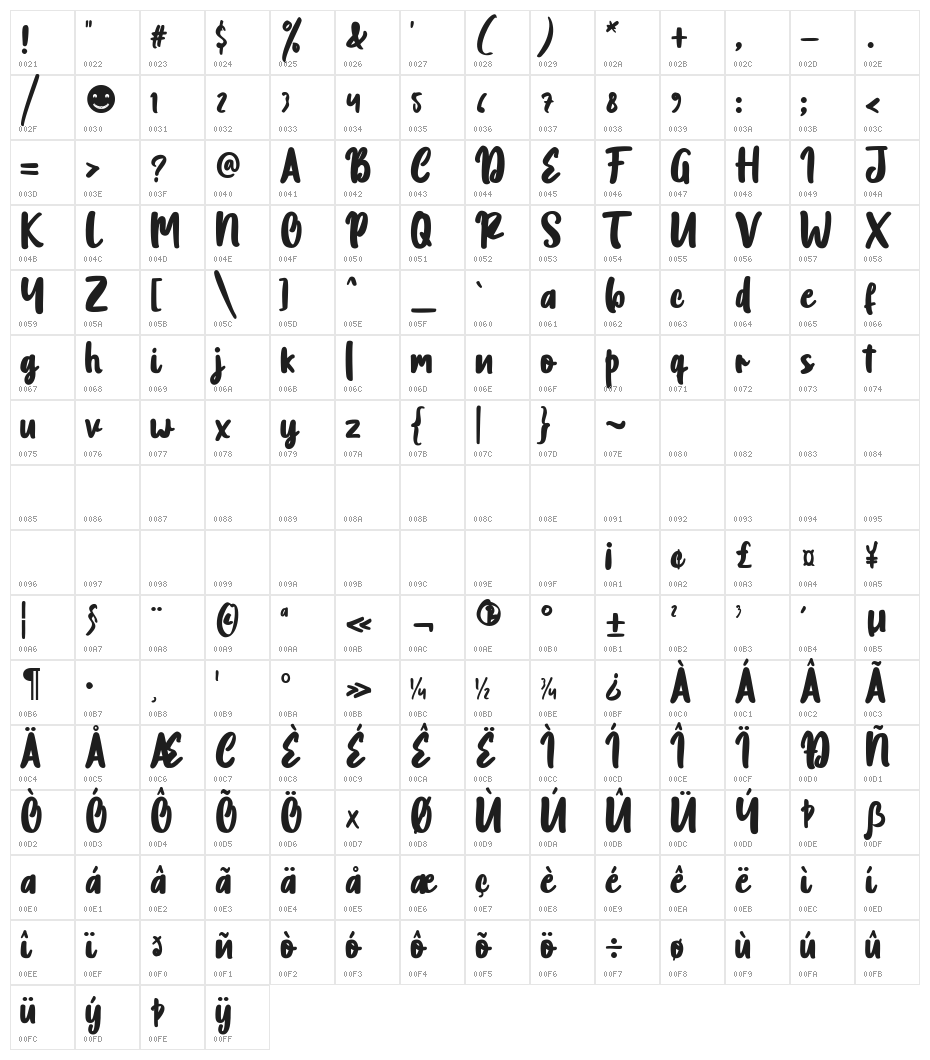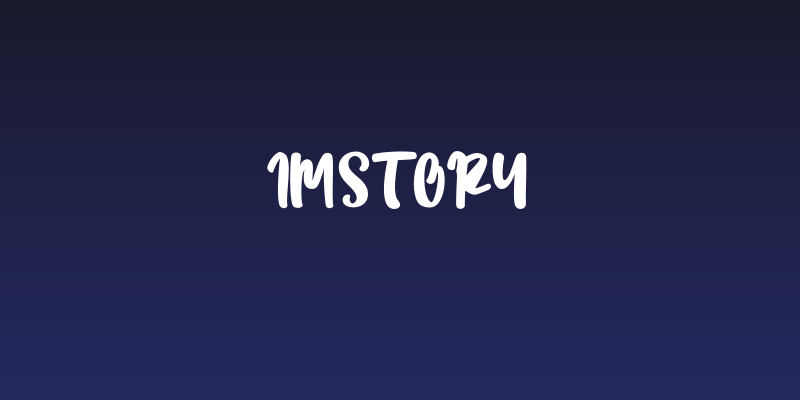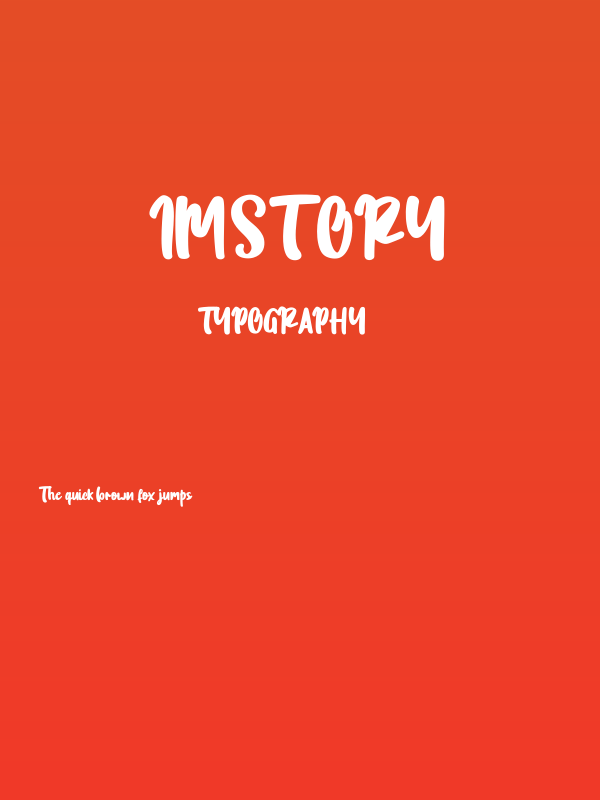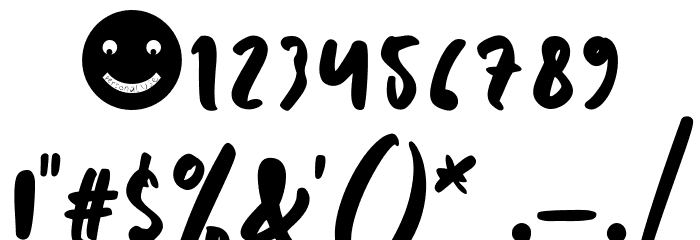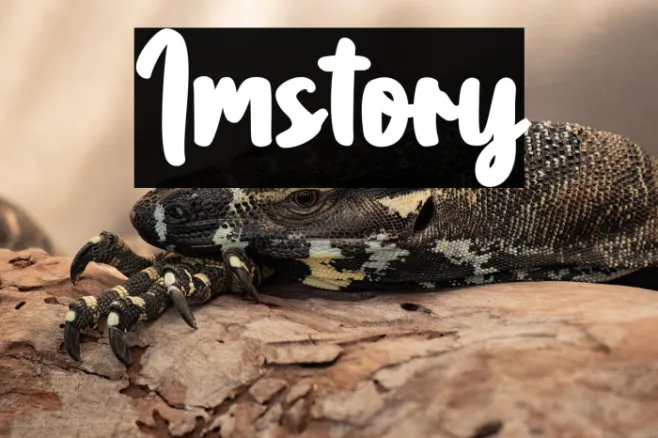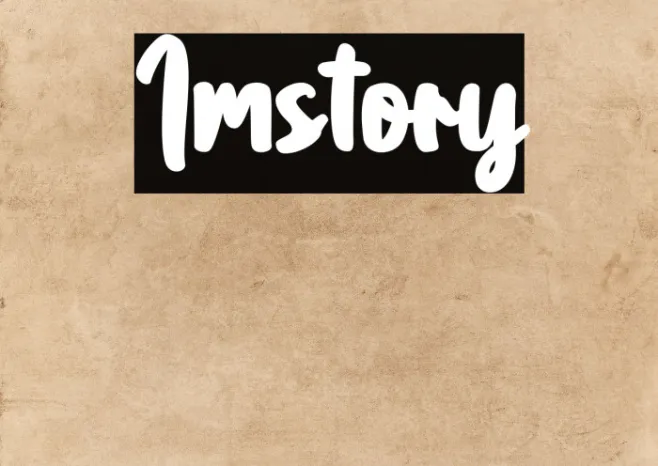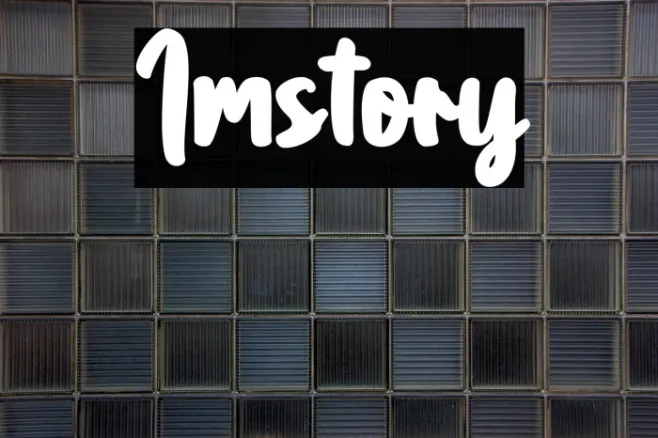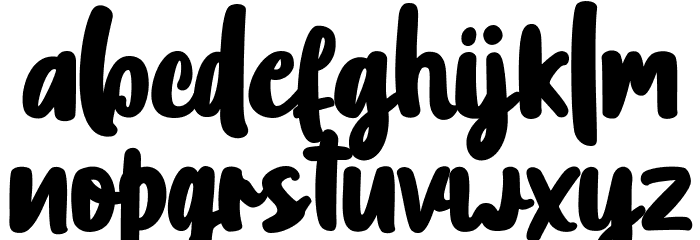
Imstory Font
Imstory Description
This font features a bold and playful handwritten style, characterized by its thick strokes and rounded edges. The letters are slightly slanted, giving a casual and friendly appearance. The uppercase and lowercase letters maintain a consistent weight, contributing to a cohesive look. The numbers and special characters are designed to match the overall aesthetic, with a similar boldness and playful curves. This font exudes a sense of fun and creativity, making it ideal for projects that aim to convey warmth and approachability.
| Proposed Projects | Ideal for children's books, playful branding, greeting cards, and casual social media graphics. |